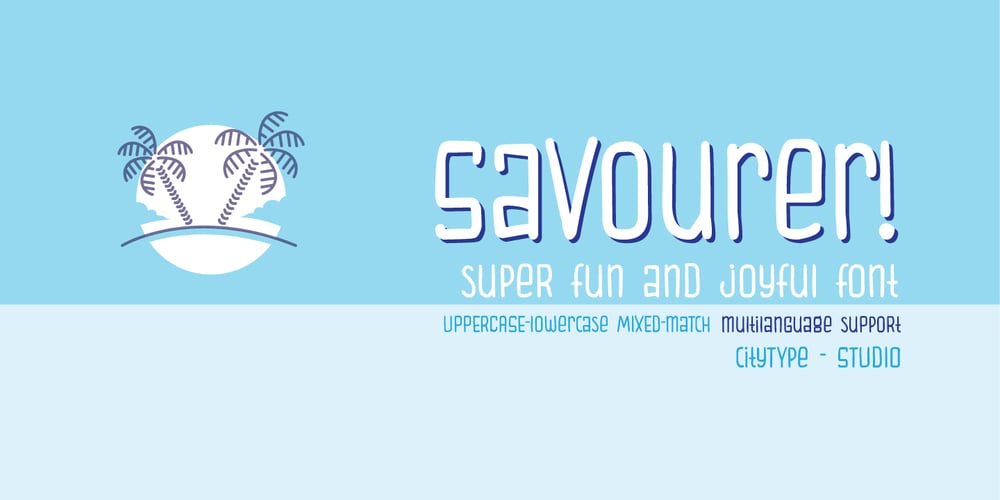
Savourer Font Family was designed by Siti Saribanon Nurjannah and published by Cititype. Savourer contains 1 styles and family package options. It’s cute, it’s fun, and it’s mighty tasty: it’s Enjoy! A mixed-case font with lots of combination possibilities.